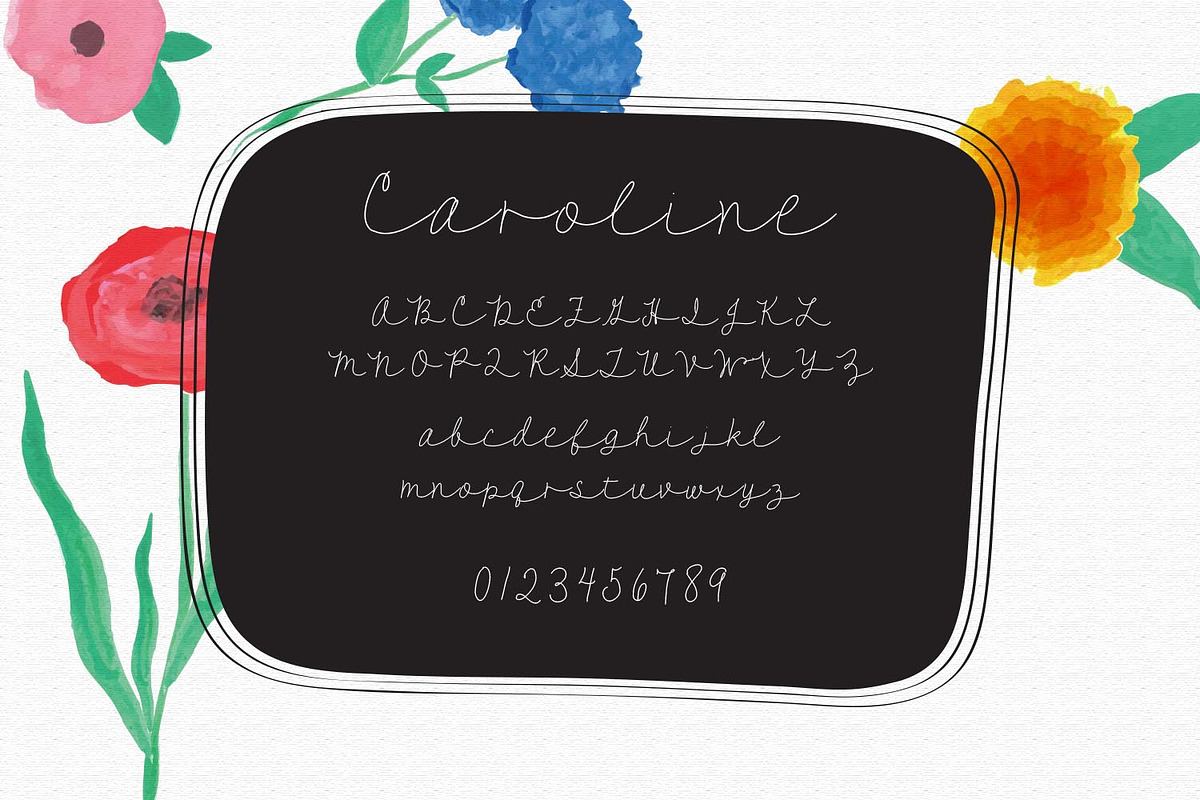
Caroline – A Script Font Free Download
Caroline – A Script Font Free Download is an elegant and graceful handwritten script typeface that adds a touch of sophistication and charm to your designs. With its smooth curves and delicate strokes, this font is perfect for wedding invitations, greeting cards, branding, logos, and any project that requires a personal, refined look.
The fluid, flowing letterforms of Caroline make it a versatile font for both formal and casual designs, offering an effortlessly stylish and timeless aesthetic. Whether you're working on an elegant event, a branding project, or just need to add some graceful flair to your typography, Caroline brings beauty and elegance to your designs.